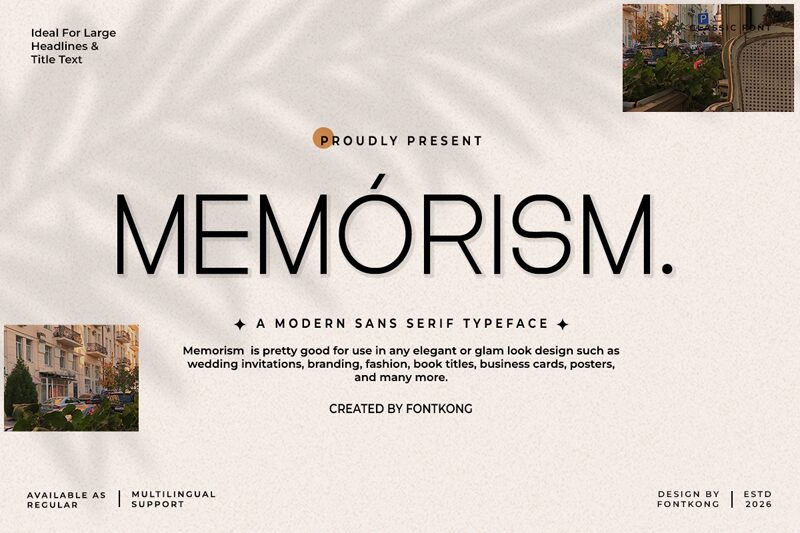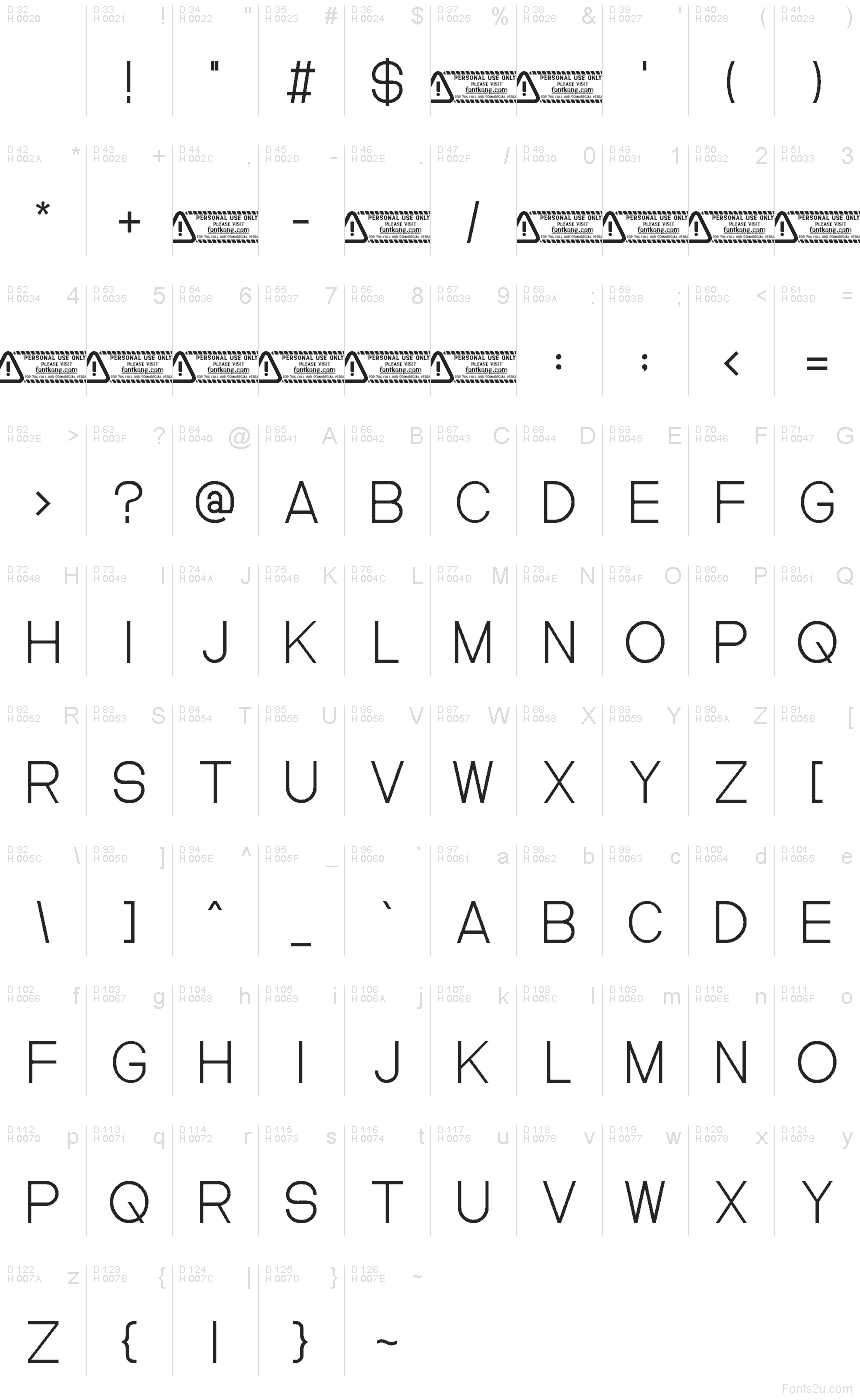
Memorism font by Kong Font is a free geometric display sans serif font. Built for striking headlines, it blends razor-thin strokes with clean, round bowls and knife-sharp vertices, giving every word a cool, gallery-lit presence. The letters feel airy yet confident—think smooth circles, straight spines, and a subtle rhythm that reads crisp at large sizes.
Using Memorism, headlines and logos for fashion labels, tech launches, editorial covers, posters, packaging, and portfolio sites take on a refined edge. This free font shines on minimalist layouts and high-contrast palettes. Keep it big and let it breathe; pair it with a neutral grotesk for body copy to anchor the elegance without stealing the spotlight.